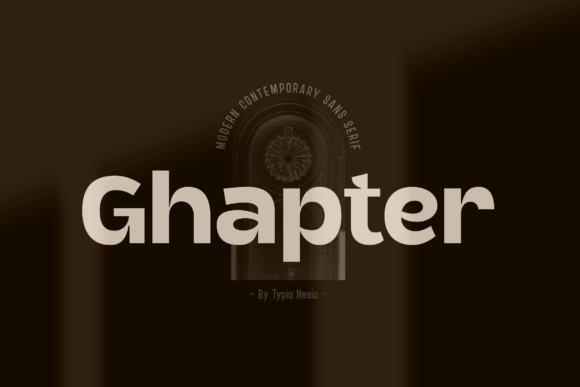
Prepare yourself to be captivated by Ghapter Font, the epitome of elegance and modernity, meticulously crafted by Typia Nesia. This remarkable sans serif font family radiates sophistication, lending an aura of charm to your creative endeavors. Ghapter's bold and distinctive character exudes confidence, while its intricate details hint at a playful spirit.
Ghapter's versatility knows no bounds, effortlessly adapting to a myriad of design projects. Its clean lines and sharp angles lend themselves perfectly to logos, branding, and invitations, while its flowing curves add a touch of grace to stationery, wedding designs, and social media posts. Ghapter's versatility is truly its superpower, transforming ordinary designs into captivating masterpieces.
Unleash your creativity and embrace Ghapter Font's boundless possibilities. Let its bold strokes command attention in your product titles, captivating customers from the first glance. Its elegant curves will add a touch of refinement to your branding, leaving a lasting impression on your audience. With Ghapter Font as your design companion, your creations will radiate confidence and sophistication, leaving a lasting impact on all who encounter them.
But Ghapter Font is more than just a collection of characters; it's an expression of your unique style, a reflection of your creative vision. Its versatility empowers you to weave your own narrative, to communicate your message with clarity and impact. Whether you're designing a logo, crafting an invitation, or creating a social media post, Ghapter Font will be your faithful companion, transforming your words into works of art.
So embrace Ghapter Font today and embark on a creative journey like no other. Let its bold strokes and elegant curves ignite your imagination and unlock the full potential of your design projects. Experience the transformative power of Ghapter Font and witness your creative vision come to life in breathtaking ways. Let Ghapter Font be the key to unlocking your design dreams and leaving an indelible mark on the world.